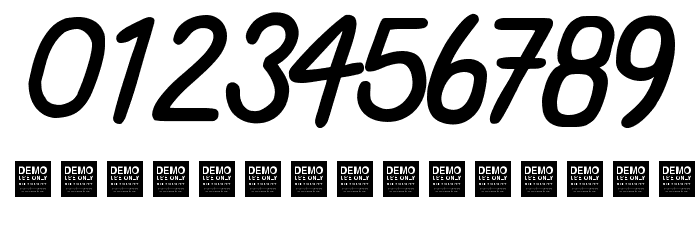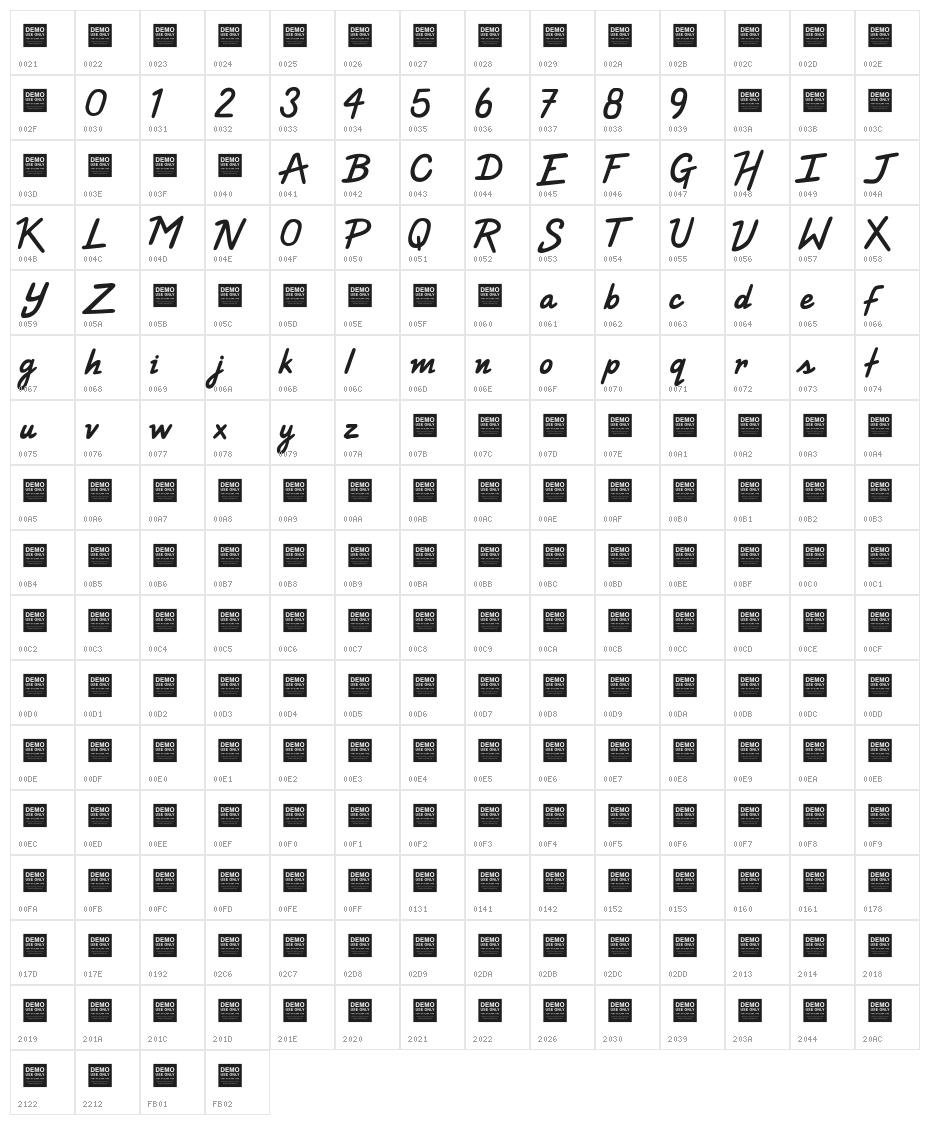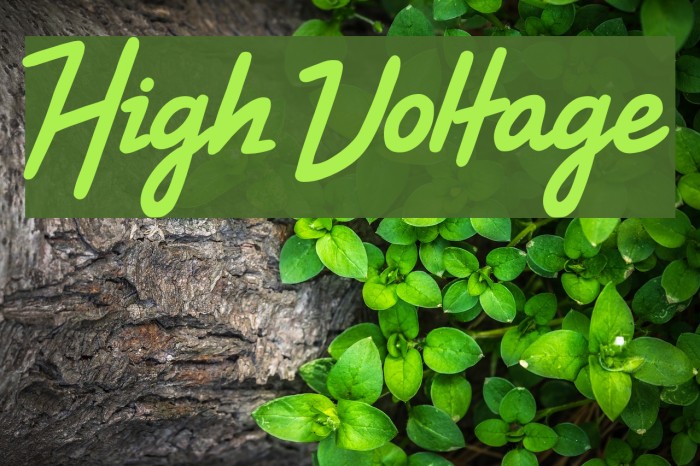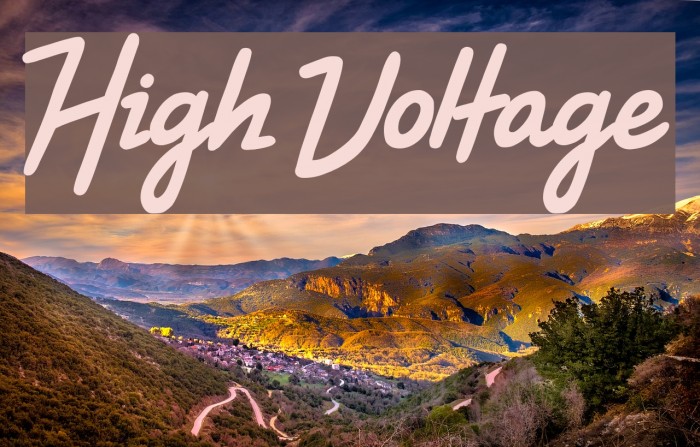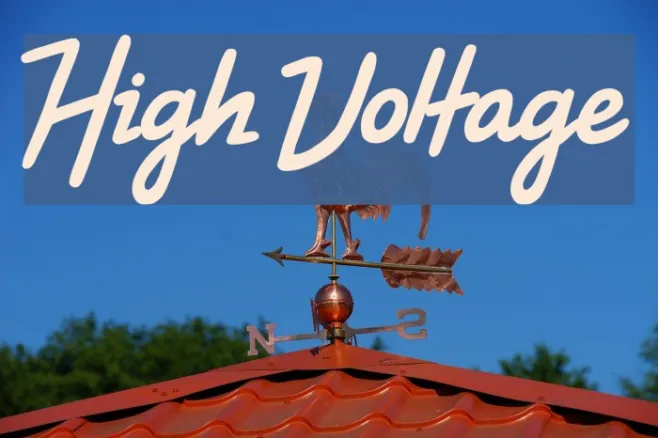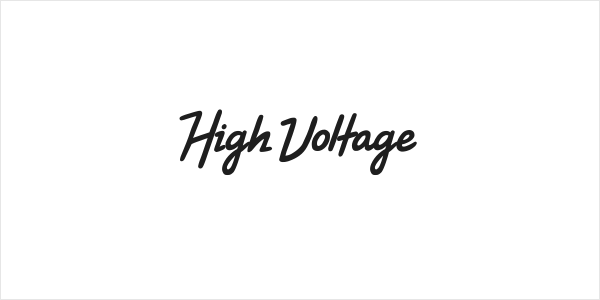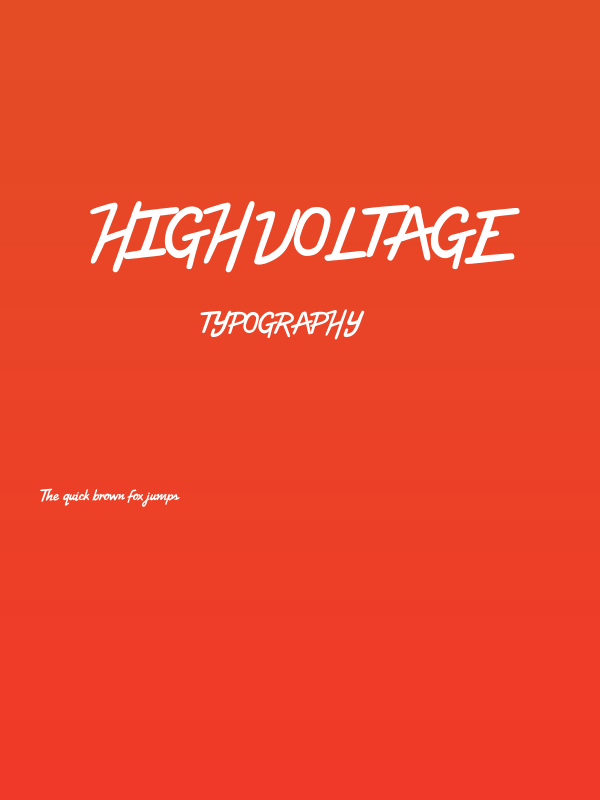
High Voltage Font
High Voltage Description
This font features a dynamic and energetic script style with a slight slant, giving it a sense of motion and fluidity. The characters are bold and rounded, with smooth curves and a consistent stroke width that maintains readability. The uppercase letters are slightly taller than the lowercase, providing a balanced contrast. The numerals are clear and distinct, matching the overall style of the alphabet. This font exudes a casual yet confident vibe, making it suitable for a variety of creative applications.
| Proposed Projects | Ideal for branding, advertising, posters, and any project requiring a lively and engaging script style. |